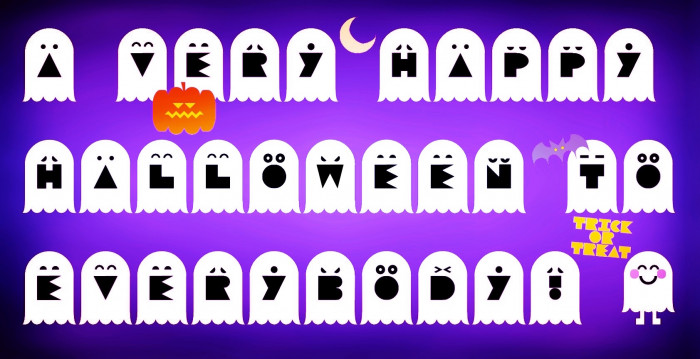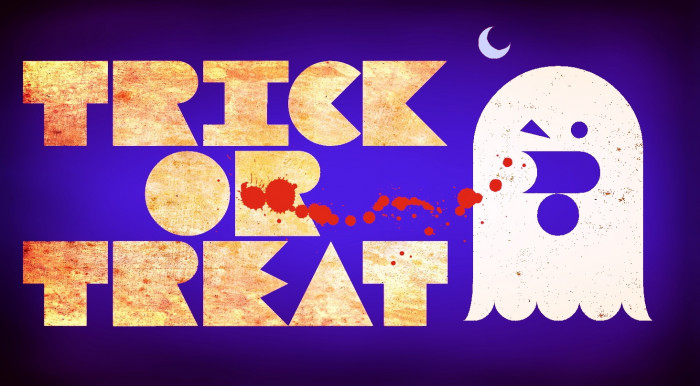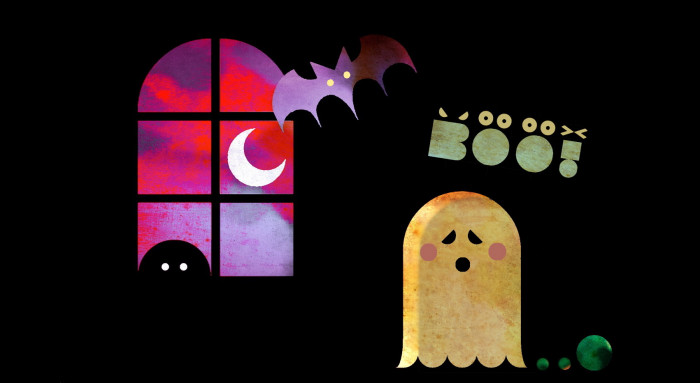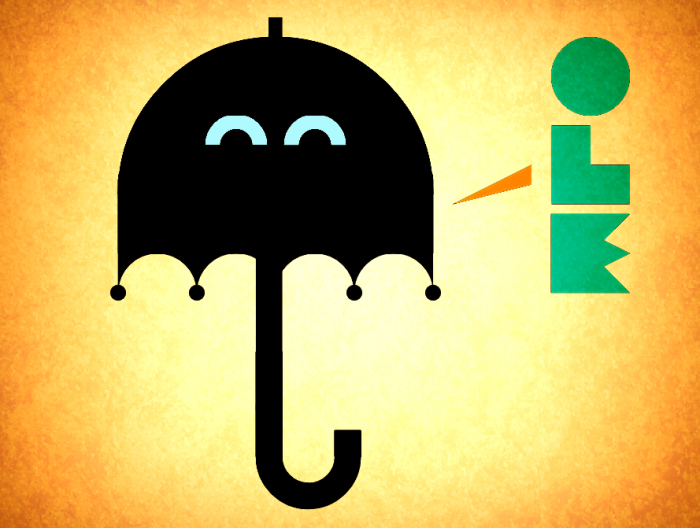
Put a smile on your night. A happy Halloween to everybody! PS: Take a look to the lowercase, please, Someone is waiting for you...
Absolutely adore, so cute and clever! 100/10
Simply delightful!
(I especially like the |r| :-)
@elmoyenique - What a fun, clever little set!  Especially the 'u': is it a ghost dressed up as an umbrella, or an umbrella who wants to be a ghost?  ;^)
is it a ghost dressed up as an umbrella, or an umbrella who wants to be a ghost?
Why not both? ;-)
I like how the eye/FS is making an expression for the first time!
@riccard0: Thank you very much! The r was an occurrence near the end, but I thought it was nice and allowed me to make a fun illustration. I'd love to see people using FontStruct to create fun fonts more often.
@Goatmeal: Thanks, compañero! The story behind the ghost-umbrella is simple. Just yesterday I saw it raining outside my window and there was an umbrella nearby so I hid a ghost in it. It was fun. But I was very surprised by the link shared by riccard0 about kasa-obake. My grandmother used to scold us as children when we opened an umbrella indoors, saying it was bad luck. Umbrellas have something special.
@frongile: Thank you! I'd already played with my logo on several occasions and I usually adapt it to the style of the glyphs it accompanies. But it's always fun to add special things, even more so in a font as playful as this one.
This is rich and witty, all these clever details... No tricks here, what a treat!
The ghost-umbrella wouldn't look bad between them.
(PS: There's even a one-eyed ghost, like my Y.)
umbrella or ghost? of course both. you can find it at lowercase |t|.